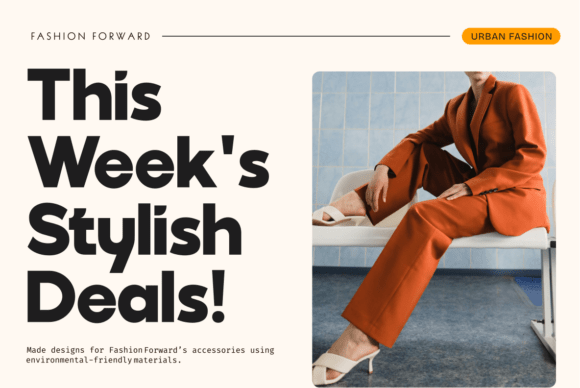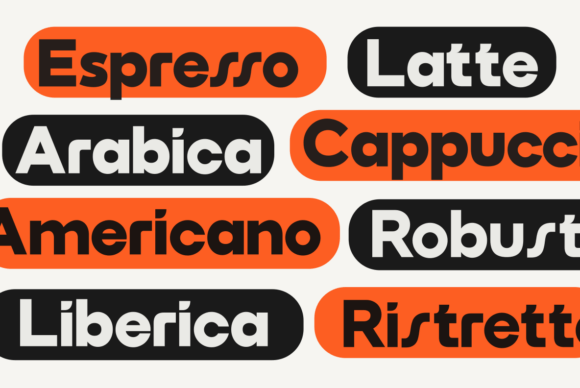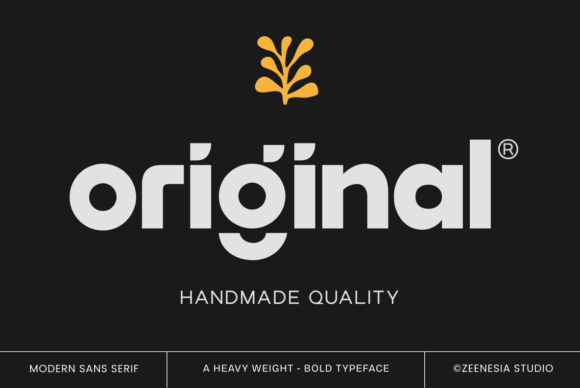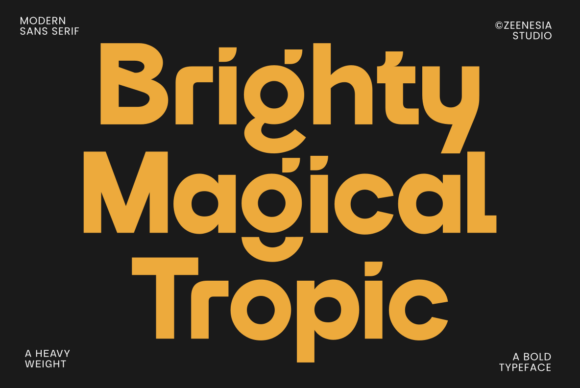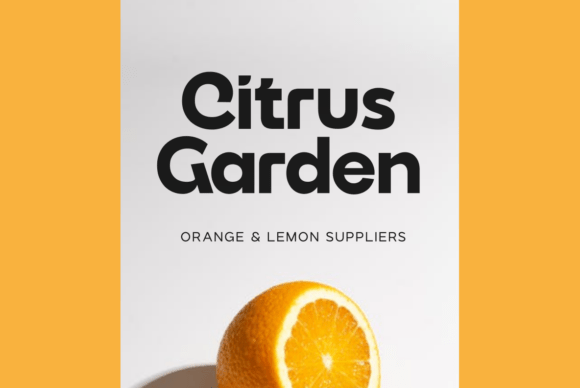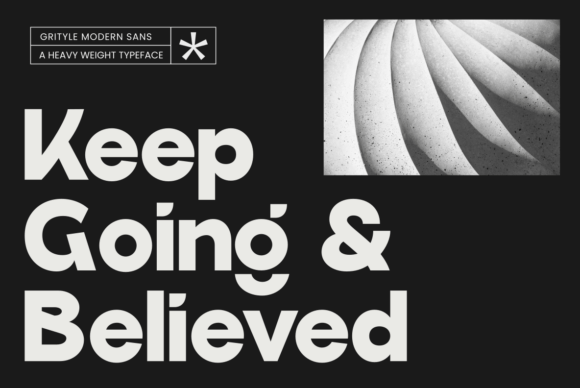
Introducing Grityle Font: The Modern Sans Serif Typeface for Impactful Designs
In the world of typography, a good font can make all the difference in creating a lasting impression. For designers and crafters looking for a modern sans serif typeface that commands attention, Grityle Font is an excellent choice. With its bold, heavy-weight structure and clean geometry, Grityle is perfect for impactful headlines, branding, and contemporary visual identities.
The Design Philosophy Behind Grityle
Grityle is designed to deliver clarity and confidence, making it an ideal choice for designers who want their work to stand out effortlessly. The font’s creator aimed to strike a balance between minimalism and a distinctive edge, resulting in a typeface that is both clean and visually striking. This balance makes Grityle versatile enough to be used in various design contexts, from digital media to print materials.
Key Features of Grityle Font
- Bold and Heavy-Weight Structure: Grityle’s robust design ensures that it grabs attention and makes a statement. Its heavy-weight structure is perfect for headlines, titles, and any text that needs to stand out.
- Clean Geometry: The font’s clean and geometric design ensures that it remains legible even at smaller sizes. This makes it suitable for use in a variety of applications, from signage to digital interfaces.
- Minimalism with a Distinctive Edge: Grityle’s design balances minimalism with a unique edge that sets it apart from more generic sans serif fonts. This distinctive quality makes it perfect for designers looking to add a touch of personality to their work.
- Versatility: Grityle’s versatility is one of its key strengths. It can be used for impactful headlines, branding, and contemporary visual identities, making it a valuable addition to any designer’s toolkit.
Use Cases for Grityle Font
Grityle’s features make it suitable for a wide range of design projects. Here are some use cases where Grityle truly shines:
- Headlines and Titles: Grityle’s bold structure makes it perfect for headlines and titles that need to grab attention.
- Branding: The font’s clean geometry and distinctive edge make it an excellent choice for branding projects that require a modern and impactful look.
- Digital Media: Grityle’s legibility and versatility make it suitable for use in digital media, including websites, social media graphics, and digital advertising.
- Print Materials: The font’s heavy-weight structure and clean design make it perfect for print materials such as posters, flyers, and brochures.
Why Choose Grityle Font?
With so many fonts available, why choose Grityle? Here are a few reasons why Grityle stands out:
- Uniqueness: Grityle’s distinctive edge sets it apart from more generic sans serif fonts, making it a great choice for designers looking to add personality to their work.
- Legibility: The font’s clean geometry ensures that it remains legible even at smaller sizes, making it suitable for use in a variety of applications.
- Versatility: Grityle’s versatility makes it a valuable addition to any designer’s toolkit, suitable for use in a wide range of design projects.
Grityle Font is a modern sans serif typeface that is perfect for designers and crafters looking to create impactful designs. With its bold, heavy-weight structure, clean geometry, and distinctive edge, Grityle is suitable for a wide range of design projects, from headlines and titles to branding and digital media. Its versatility, legibility, and unique design make it an excellent choice for designers who want their work to stand out effortlessly.
Whether you’re a seasoned designer or a crafter looking to elevate your work, Grityle Font is an excellent choice. Its modern design, versatility, and impact make it a valuable addition to any design project.